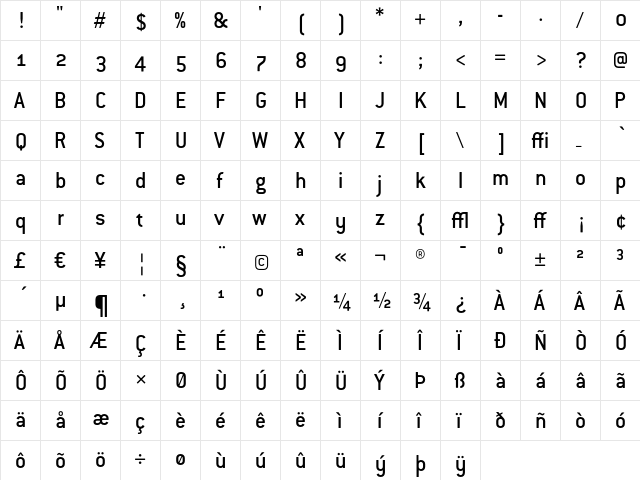
ConduitOSITC Medium
Design Context for ConduitOSITC Typeface
ConduitOSITC is a composed and adaptable typeface that performs quietly and consistently across a wide range of design contexts. Its narrow stance lets it pack a punch even in space-constrained designs.